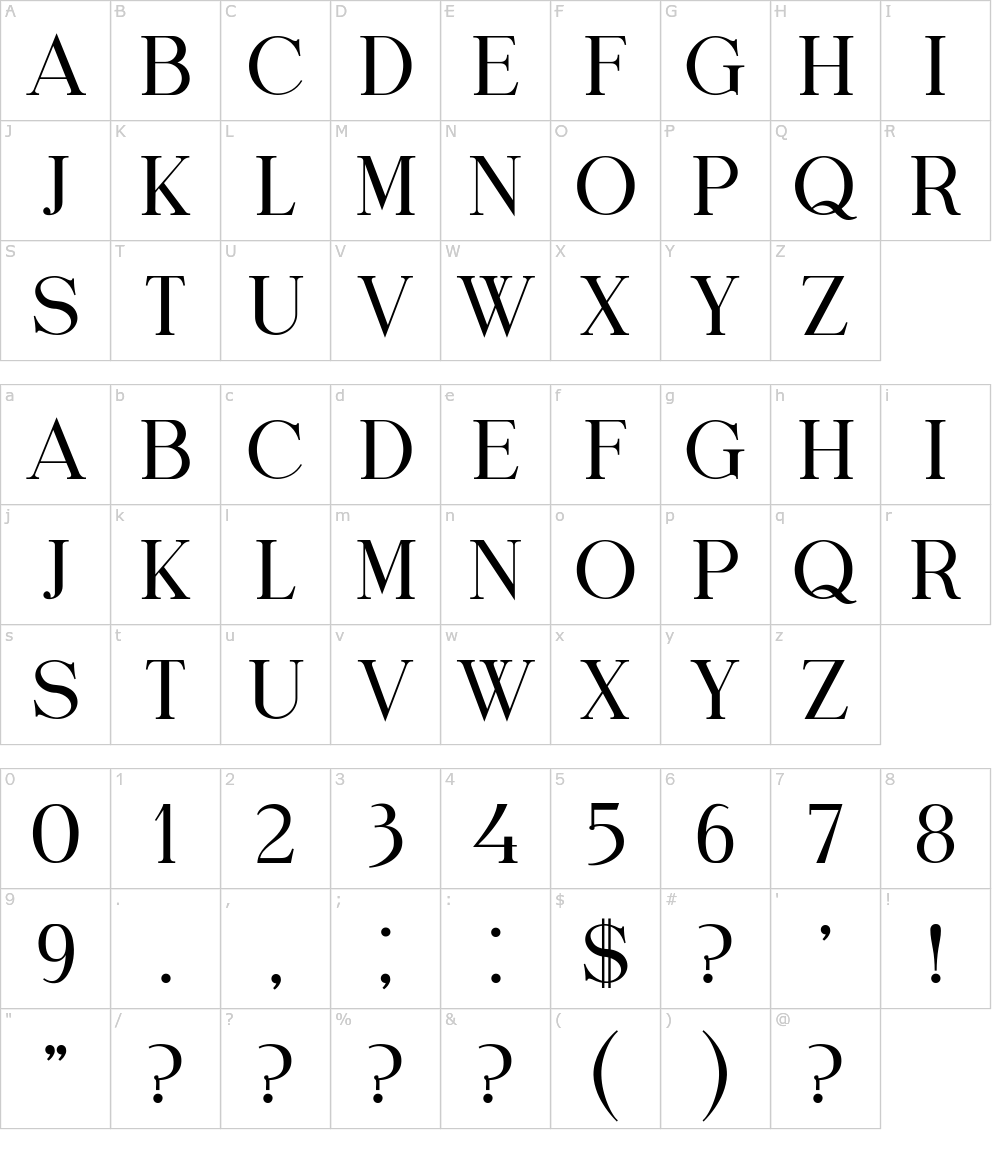
Web download the dolce vita font by muraknockout media & design. Web dolce regular font. Dolce contains 6 styles and family package options.
Now just click on the copy button beside the font you. Web dolce font is a nice serif typeface designed by vladimir nikolic. Web download and enjoy this font from the link below.